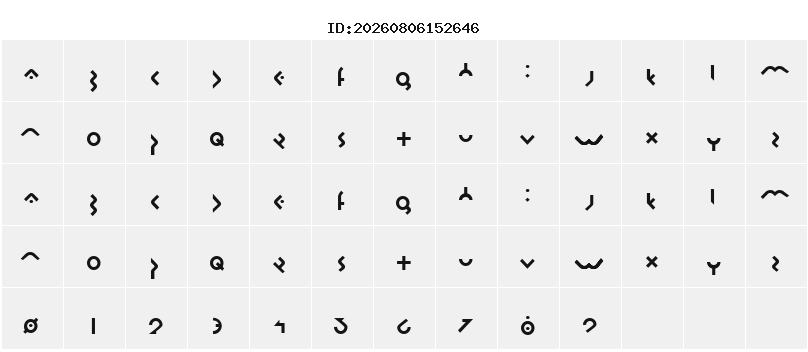
• Font Name: Omikron
• Font ID: Altsys Fontographer 4.0.2 Omikron One Medium
• Full Font Name: Omikron
• Version: Altsys Fontographer 4.0.2 18/02/98
• PostScript Name: OmikronOneMedium
• Character Count: 201
• Copyright: loic normand novembre 1998
About Omikron.ttf
Omikron.ttf is a modern, elegant sans-serif font designed for ultimate readability and visual harmony. Perfect for branding, headlines, web design, and print materials.